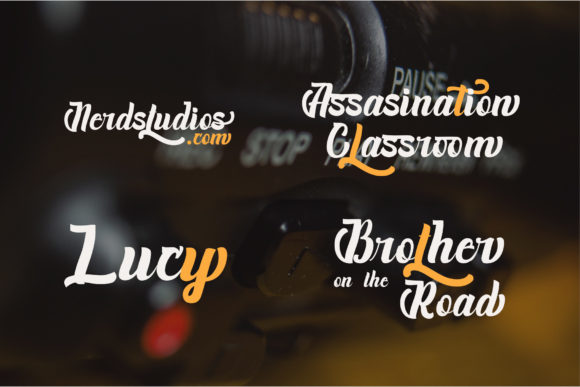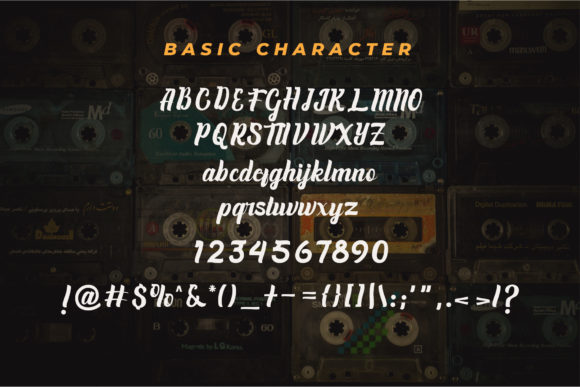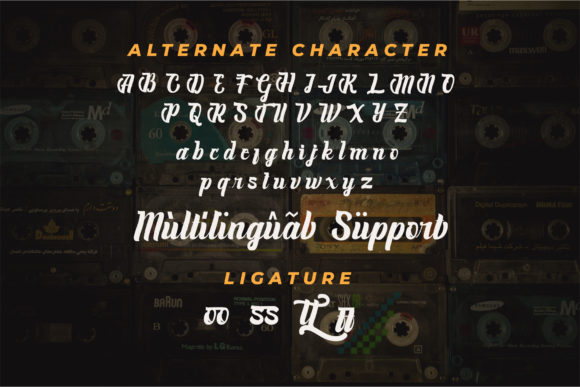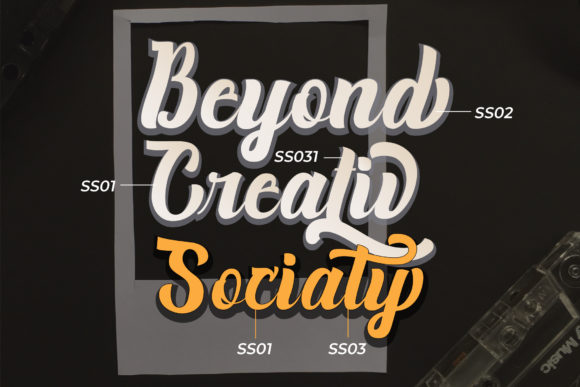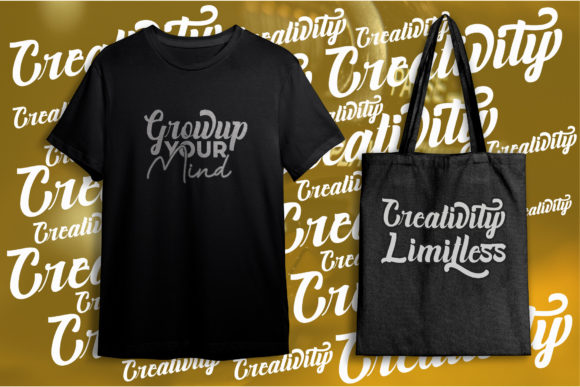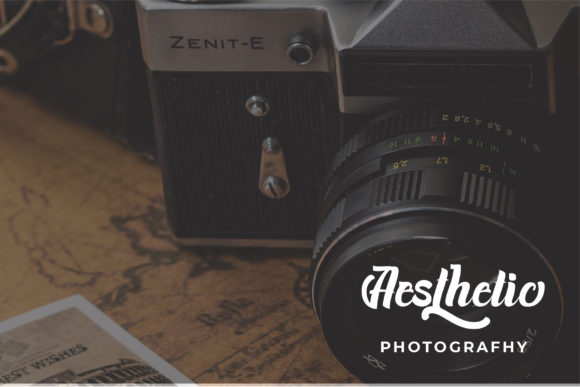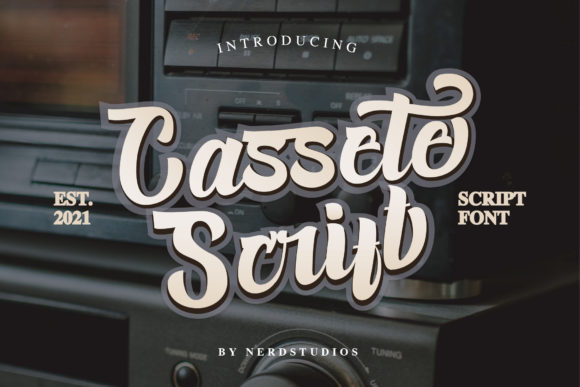
Cassete Script Font: Elevate Your Designs with a Stylish and Nostalgic Touch
In the world of typography, fonts play a crucial role in conveying the tone and personality of a design. For designers and crafters looking to add a touch of sophistication and nostalgia to their projects, the Cassete Script Font is an excellent choice. This gorgeous and bold handwritten font is crafted to give your headlines and logotype projects a stylish touch, making it perfect for a wide range of design applications.
The Characteristics of Cassete Script Font
Cassete Script Font reads as strong, confident, and dynamic, making it an ideal choice for designers who want to make a statement. Its bold and expressive letterforms are carefully crafted to add tons of nostalgic character to your designs, evoking a sense of classic elegance and sophistication. Whether you’re working on a branding project, a packaging design, or a digital marketing campaign, Cassete Script Font is sure to impress.
Key Features of Cassete Script Font
- Bold and Expressive Letterforms: Cassete Script Font features bold and expressive letterforms that are designed to make a statement. Its confident and dynamic style is perfect for headlines, logotypes, and other high-impact design applications.
- Nostalgic Character: The font’s nostalgic character is reminiscent of classic scripts, adding a touch of elegance and sophistication to your designs.
- Handwritten Style: Cassete Script Font is a handwritten font, giving it a personal and unique feel that’s perfect for designs that require a human touch.
- Versatile: The font is versatile and can be used for a wide range of design applications, from branding and packaging to digital marketing and advertising.
Why Choose Cassete Script Font?
There are many reasons why designers and crafters choose Cassete Script Font for their projects. Here are a few:
- Unique Style: Cassete Script Font has a unique style that’s unlike any other font on the market. Its bold and expressive letterforms make it stand out from the crowd.
- High-Quality: Cassete Script Font is a high-quality font that’s designed to deliver exceptional results. Its clear and crisp letterforms ensure that your designs look professional and polished.
Design Applications for Cassete Script Font
Cassete Script Font is a versatile font that can be used for a wide range of design applications. Here are a few ideas to get you started:
- Branding: Use Cassete Script Font to create a bold and memorable brand identity. Its confident and dynamic style is perfect for logos, business cards, and other branding materials.
- Packaging: Add a touch of elegance and sophistication to your packaging designs with Cassete Script Font. Its nostalgic character is perfect for product labels, packaging inserts, and other marketing materials.
- Digital Marketing: Use Cassete Script Font to create eye-catching digital marketing materials, such as social media graphics, email headers, and website titles.
Tips for Using Cassete Script Font
Here are a few tips for using Cassete Script Font in your designs:
- Use it Boldly: Cassete Script Font is a bold font, so don’t be afraid to use it boldly. It’s perfect for headlines, logotypes, and other high-impact design applications.
- Experiment with Colors: The font looks great in a variety of colors, so don’t be afraid to experiment. Try pairing it with bold and bright colors to create a statement piece.
- Mix and Match: Cassete Script Font can be paired with a variety of other fonts to create a unique and interesting design. Try mixing and matching it with sans-serif fonts or other script fonts to create a bold and eye-catching design.
In conclusion, Cassete Script Font is a gorgeous and bold handwritten font that’s perfect for designers and crafters looking to add a touch of sophistication and nostalgia to their projects. Its confident and dynamic style, nostalgic character, and versatility make it an excellent choice for a wide range of design applications. Whether you’re working on a branding project, a packaging design, or a digital marketing campaign, Cassete Script Font is sure to impress.